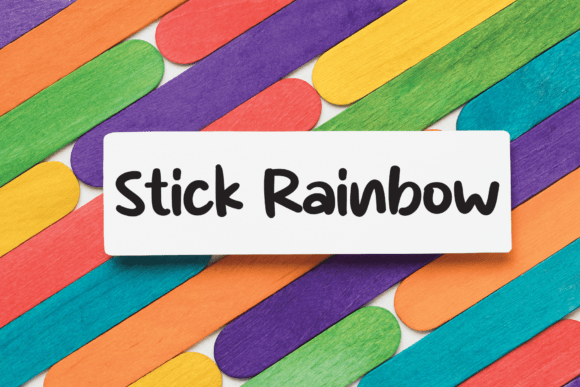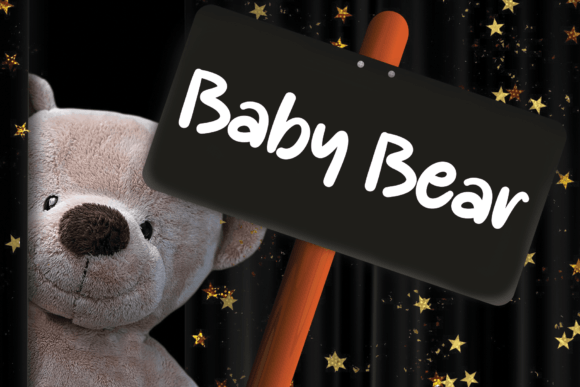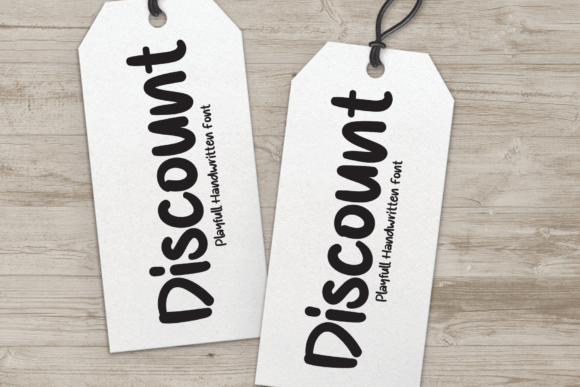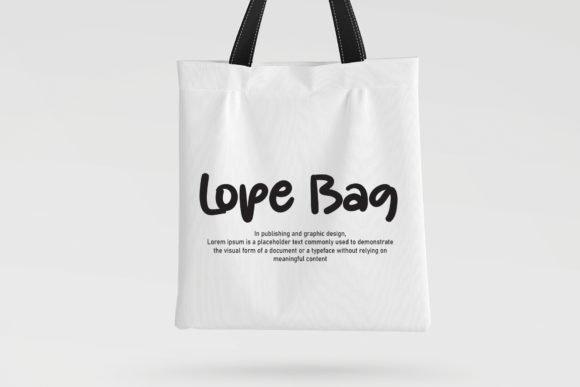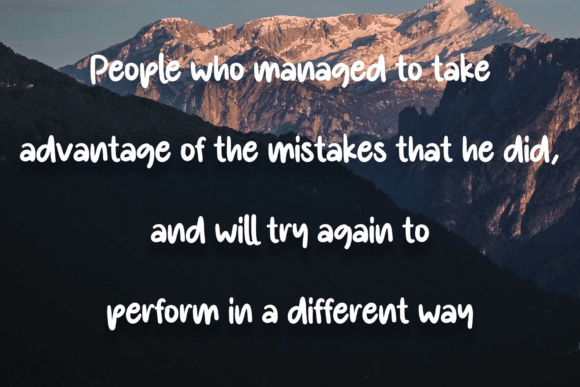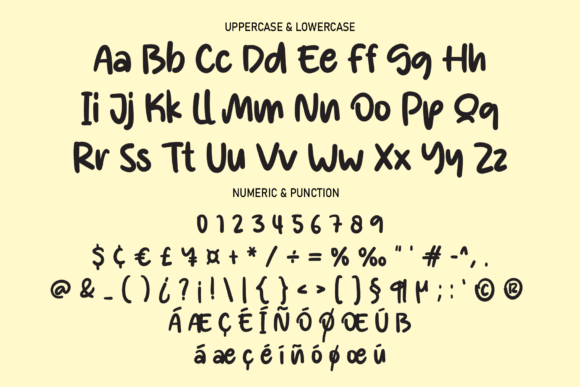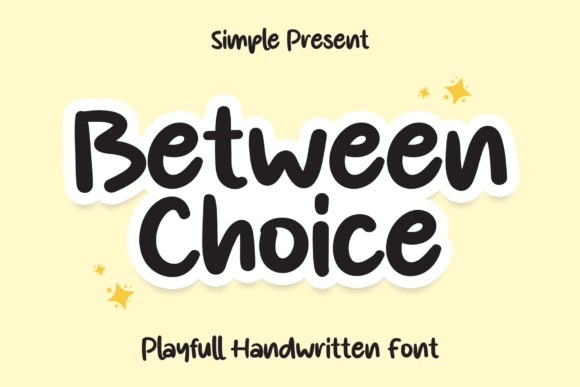
Introducing Between Choice Font: The Ultimate Handwritten Font for Your Design Needs
Are you tired of using the same old fonts for your designs? Look no further! Between Choice Font is here to revolutionize your typography with its clean, relaxed, and friendly handwritten style. This versatile font is perfect for a wide range of designs, from casual social media posts to professional branding materials.
The Characteristics of Between Choice Font
So, what makes Between Choice Font so special? Here are a few key characteristics that set it apart:
- Clean and Simple Style: Between Choice Font boasts a neat and straightforward design that makes it easy to read and understand. This simplicity also allows it to adapt seamlessly to various design contexts.
- Relaxed and Friendly Vibe: The font’s handwritten nature gives it a warm and approachable feel, perfect for creating a connection with your audience.
- High Versatility: Whether you’re working on a blog post, social media graphic, or even a logo, Between Choice Font can handle it all with ease.
Why Designers and Crafters Love Between Choice Font
Designers and crafters are always on the lookout for fonts that can elevate their work and make it stand out. Here are some reasons why Between Choice Font has become a favorite among creative professionals:
- Easy to Pair: Between Choice Font pairs well with a variety of other fonts, making it easy to create visually appealing typography combinations.
- Legible and Readable: The font’s clean design ensures that your text remains legible and easy to read, even at smaller sizes.
- Customizable: With its simple yet distinctive style, Between Choice Font provides a great base for customization to fit your brand’s unique voice.
Use Cases for Between Choice Font
The versatility of Between Choice Font makes it suitable for a wide range of applications. Here are some ideas to get you started:
- Branding and Logos: Create a memorable brand identity with Between Choice Font as your go-to font.
- Social Media Graphics: Elevate your social media presence with eye-catching graphics featuring Between Choice Font.
- Blogging and Content Creation: Add a personal touch to your blog posts and articles with this friendly and approachable font.
- Packaging and Product Design: Use Between Choice Font to create labels, packaging, and product designs that stand out on store shelves.
Tips for Getting the Most Out of Between Choice Font
To maximize the potential of Between Choice Font, keep the following tips in mind:
- Experiment with Sizes and Colors: Play around with different font sizes and colors to create visual interest and hierarchy in your designs.
- Mix and Match with Other Fonts: Don’t be afraid to combine Between Choice Font with other fonts to create unique and engaging typography combinations.
- Use it Consistently: Establish a consistent visual identity by using Between Choice Font across all your design materials.
In conclusion, Between Choice Font is an exceptional handwritten font that offers a perfect blend of cleanliness, simplicity, and friendliness. Its versatility and legibility make it an excellent choice for designers and crafters looking to elevate their work. With its wide range of applications and customization possibilities, Between Choice Font is sure to become your go-to font for all your design needs.